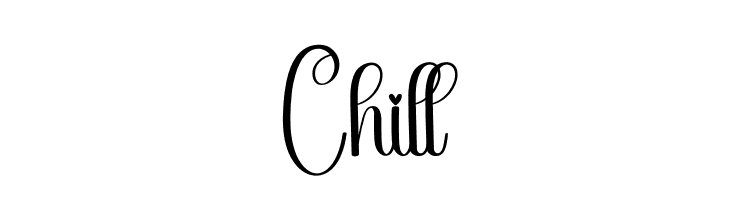
( Fonts by Rodrigo German - RASDESIGN )
The image features hand-drawn illustrations, not a standard font.
( Fonts by Khurasan )
A playful, bold font with rounded, bubbly characters.
A bold, rounded font with a playful and friendly style.
A playful and energetic handwritten font with fluid strokes.
A playful, handwritten script font with dynamic strokes and a lively appearance.
( Fonts by Scratchones )
A playful and whimsical script font with elegant, flowing lines and unique flourishes.
A bold, dripping font perfect for horror-themed designs.
( Fonts by Tigadestd )
A bold, rounded, and playful font with a bubble-like appearance.